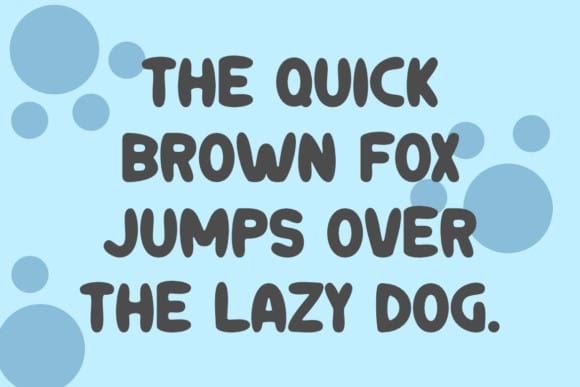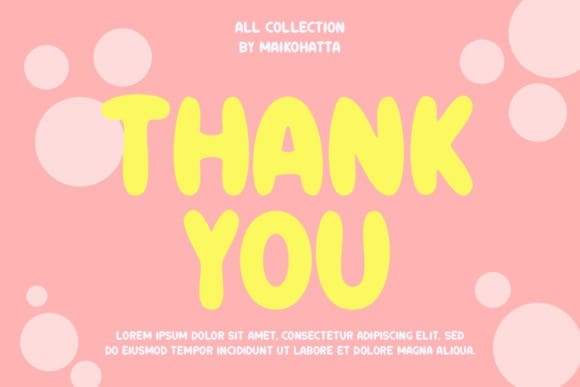
Dinous Playful Font
Dinous Playful Font is suitable for greeting cards, invitations, posters, baby clothing, books cover, quotes, logos, presentations, headline, etc. Outstanding in a wide range of contexts.